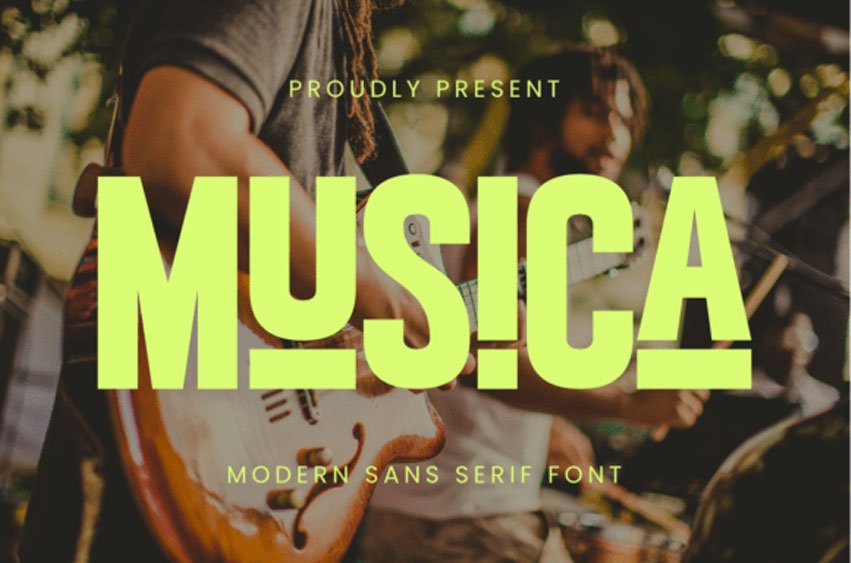
Musica Font
Musica Font is a modern sans serif font perfect for adding a bold and contemporary touch to your creative projects!
Ideal for crafters and graphic designers, this versatile typeface brings a strong and impactful feel to any design. Elevate your creations with Musica today!